In today’s interconnected world, design transcends borders, drawing inspiration from diverse cultures and traditions. Foreign Look fonts offer designers a unique opportunity to infuse their projects with global aesthetics, capturing the essence of various cultures through typography. Below, we explore 10 exceptional Foreign Look fonts from PutraCetol Studio that embody the spirit of different regions, perfect for adding an international flair to your designs.
Royal Bangkok is a typographic masterpiece that encapsulates the spirit of Thailand’s rich cultural heritage. Each letter is crafted with meticulous attention to detail, mirroring the intricate carvings found in ancient scripts and evoking the timeless beauty of ethnic artistry.
Batik Blend is a captivating display typeface that beautifully merges the intricate art of Javanese batik with classic Sanskrit-inspired design. This font is a celebration of Java’s rich cultural heritage, bringing the traditional aesthetic into the modern design landscape. Batik Blend’s unique character is evident in its detailed and artistic letterforms, making it an ideal choice for projects that require an ethnic and classic touch.
Niranjan is a display font that bridges the gap between traditional Indian calligraphy and contemporary typography. With its elegant curves and refined strokes, Niranjan captures the essence of Sanskrit scripts while maintaining the readability and functionality required for today’s diverse design needs.
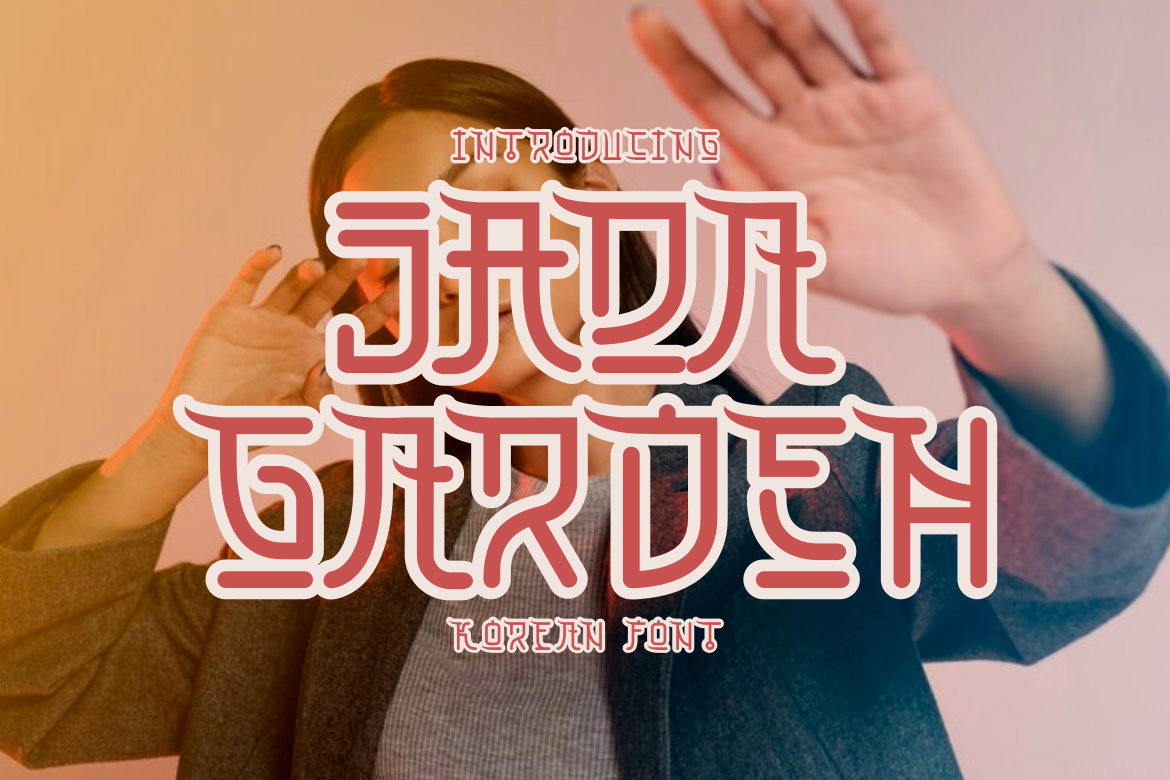
Jada Garden is a Korean style font that captures the charm and elegance of Korean and Asian brush strokes. It is a display font that is perfect for adding a touch of whimsy and fun to your designs.
Maple Story is a Korean style font that captures the charm and elegance of Korea in every stroke. It is a display font that is perfect for adding a touch of whimsy and fun to your designs.
Mandarin Mantis is a Chinese Brush Font perfect for a variety of applications, such as logos, branding, children’s themes, crafting, invitations, packaging, posters, titles, business cards, greeting cards, stickers, children’s books, magazines, and more. Whether you want to celebrate the Chinese New Year, create a logo for your Asian-inspired business, or simply add some flair to your text, this font will help you achieve your goals.
Eastern Echoes is a whimsical and playful typeface inspired by the enchanting world of Chinese culture. Each character is meticulously crafted to resemble hand-brushed strokes, embodying the artistic elegance reminiscent of traditional Chinese calligraphy. The font encapsulates the quirky essence of children’s illustrations, making it a perfect blend of classic and contemporary design elements.
Mahaputra is a font that supports 38 languages and was developed by PutraCetol Studio. It offers a unique style suitable for various design projects.
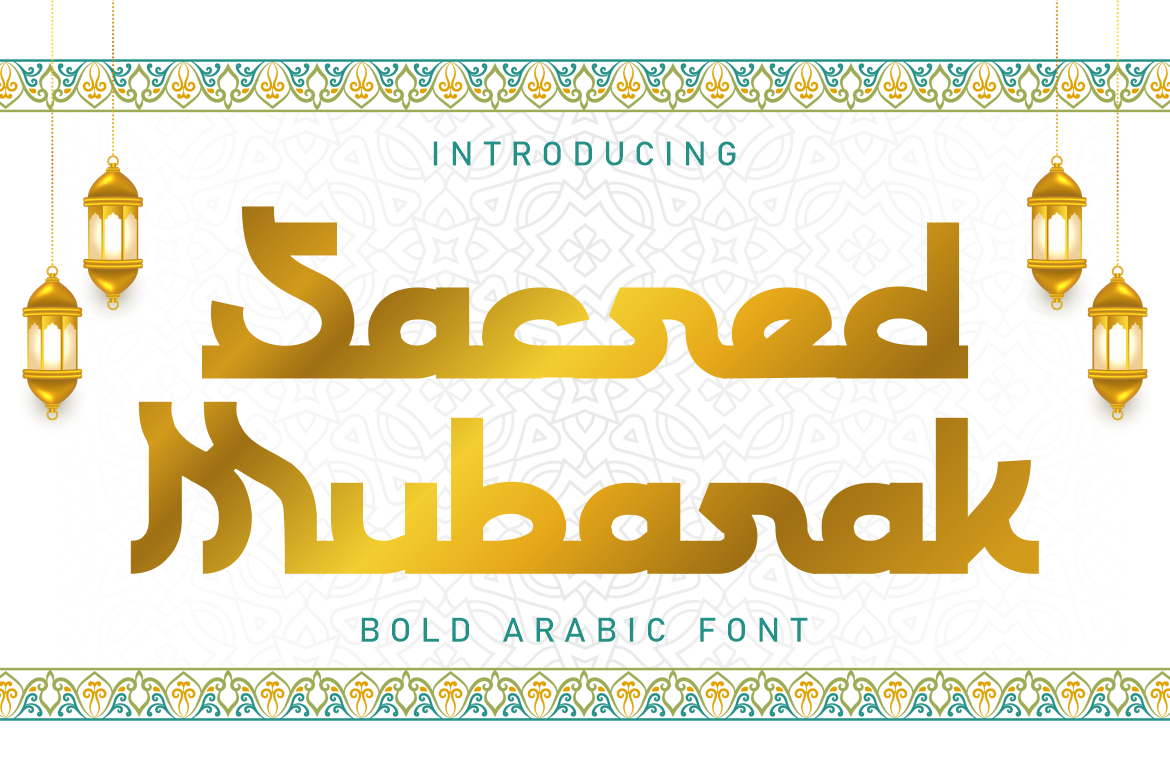
Sacred Mubarak is a bold Arabic-inspired display font that fuses modern design with traditional Islamic aesthetics. It is ideal for projects that require a touch of cultural richness and spiritual elegance.
Hikaya Mirage is an exquisite Arabic Display Font that embodies the enchanting beauty of the Arabian nights. With its elegant curves and sophisticated design, Hikaya Mirage is more than just a typeface; it’s a journey through the rich tapestry of Arabic culture. Each character is crafted with precision, reflecting the traditional calligraphy of the Arab world while infusing a modern twist that resonates with contemporary design aesthetics.
Incorporating Foreign Look fonts into your design projects allows you to celebrate and honor the diverse cultures that inspire creativity worldwide. These typefaces not only add aesthetic value but also convey stories, traditions, and emotions unique to their cultural origins. Whether you’re designing for a global audience or aiming to infuse your work with international flair, these fonts from PutraCetol Studio offer a gateway to a world of design possibilities.